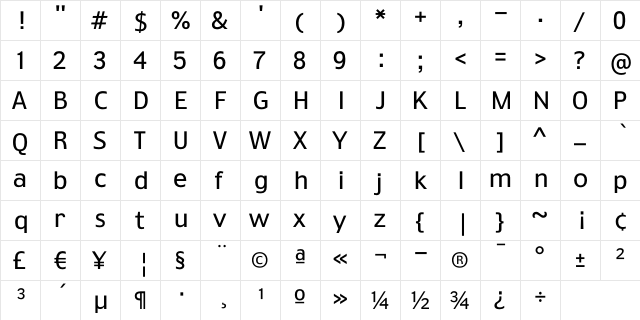
TruthCYR Regular
| Foundry | The Font Bureau, Inc |
| Designer | David Berlow |
Design Context for TruthCYR Typeface
TruthCYR offers clean, dependable letterforms without strong stylistic allegiance, making it a practical choice for designers who need flexibility.
Originally released in 1994, this typeface is available in OpenType (OTF) format.